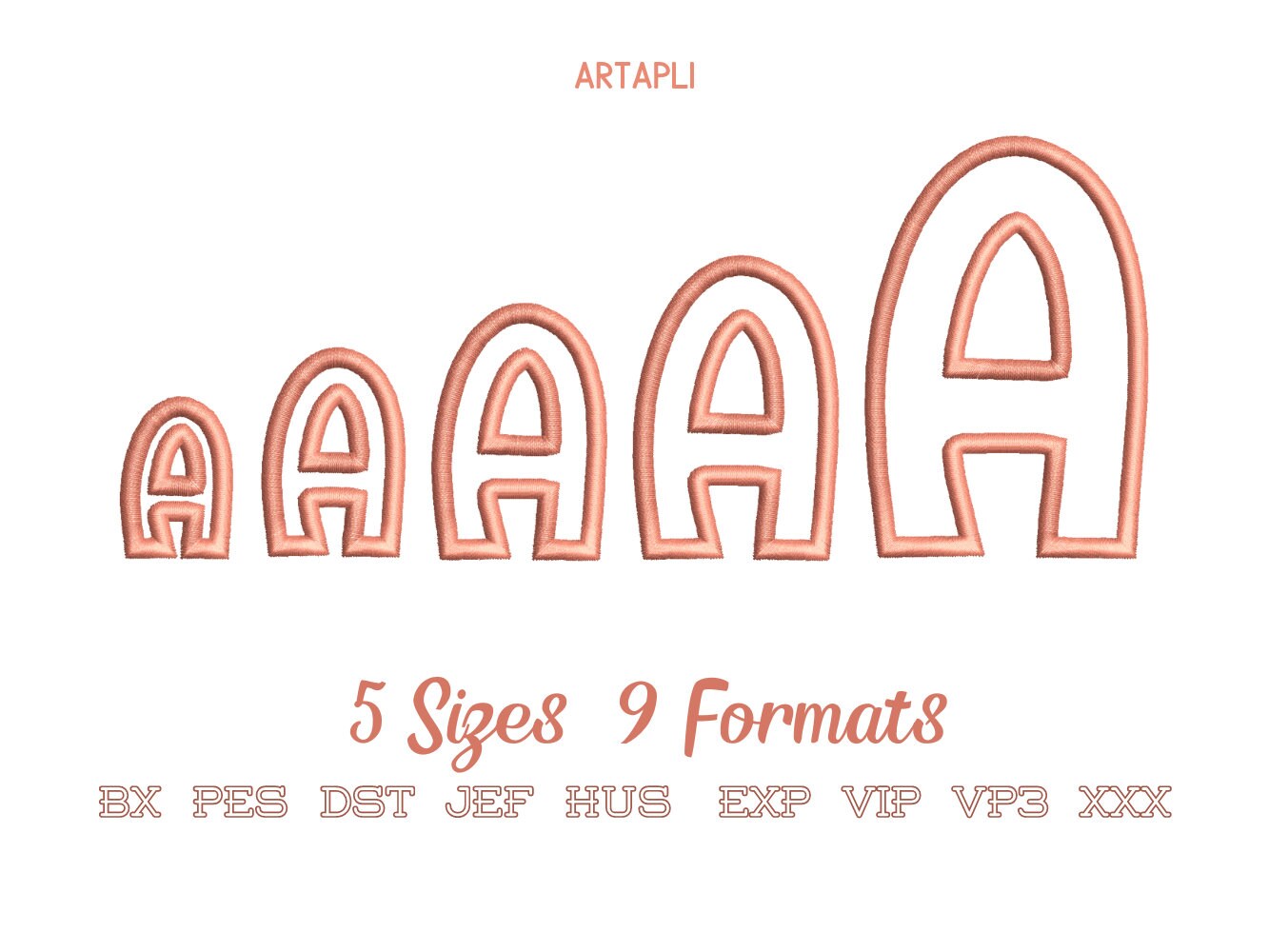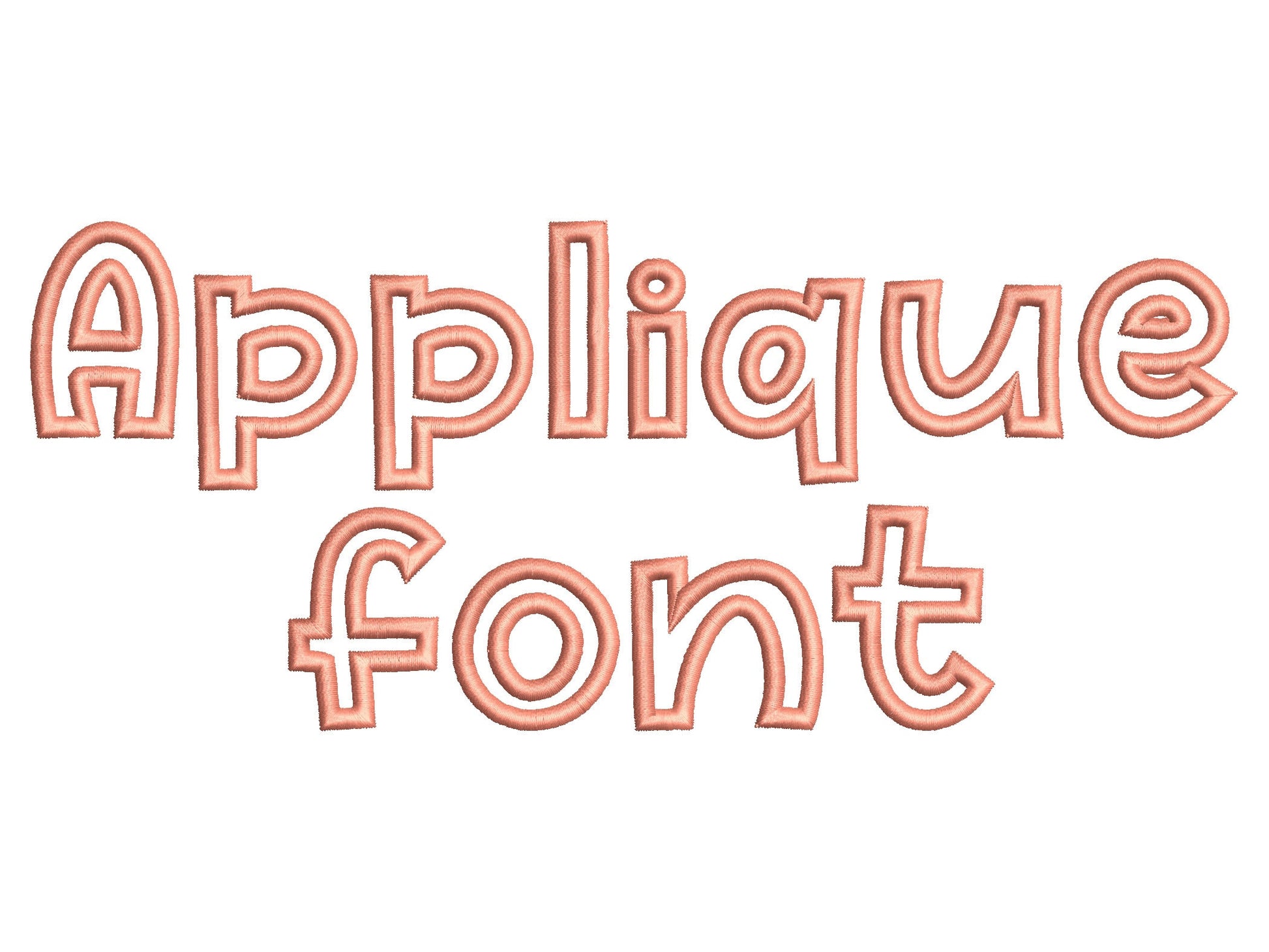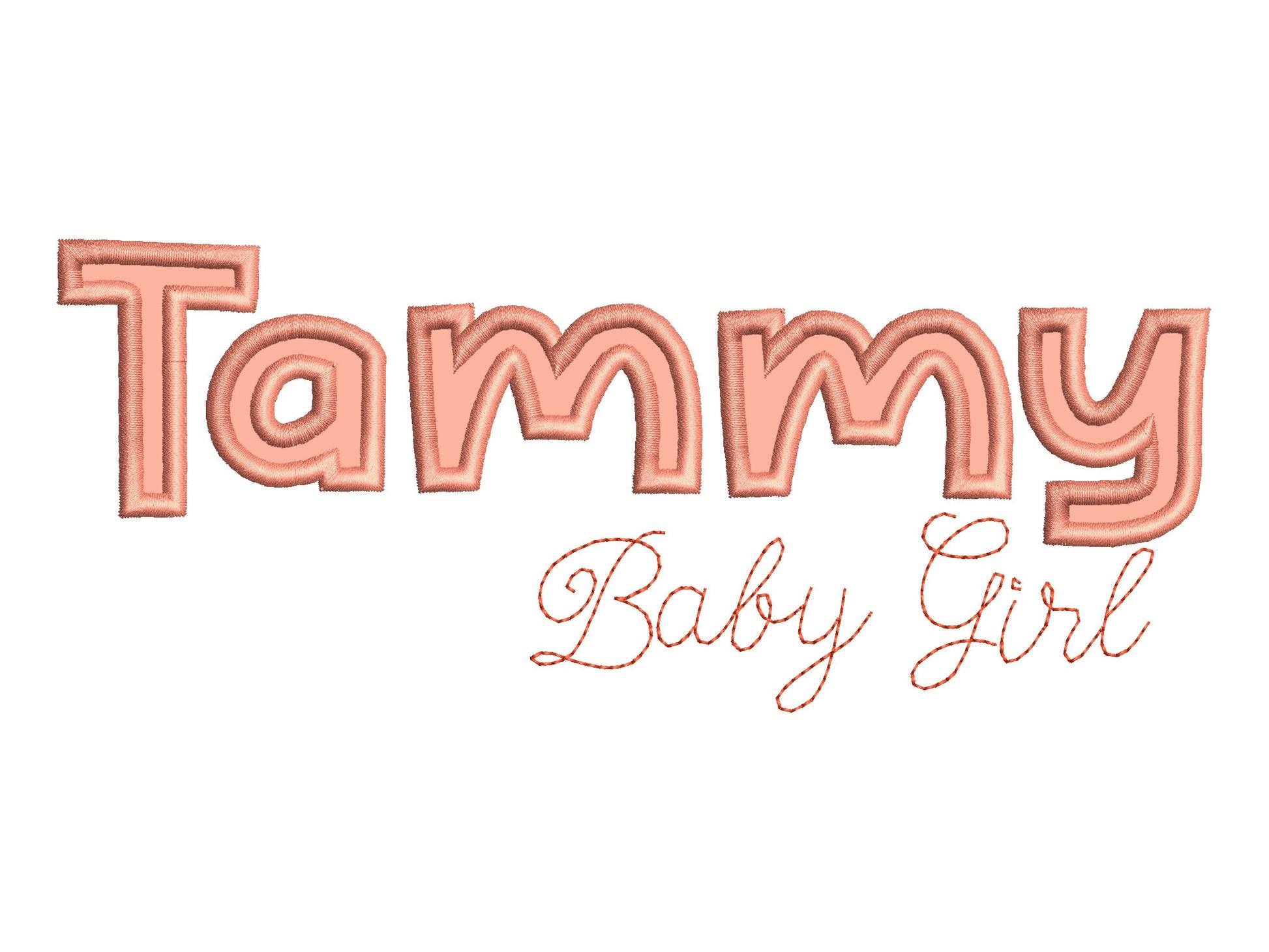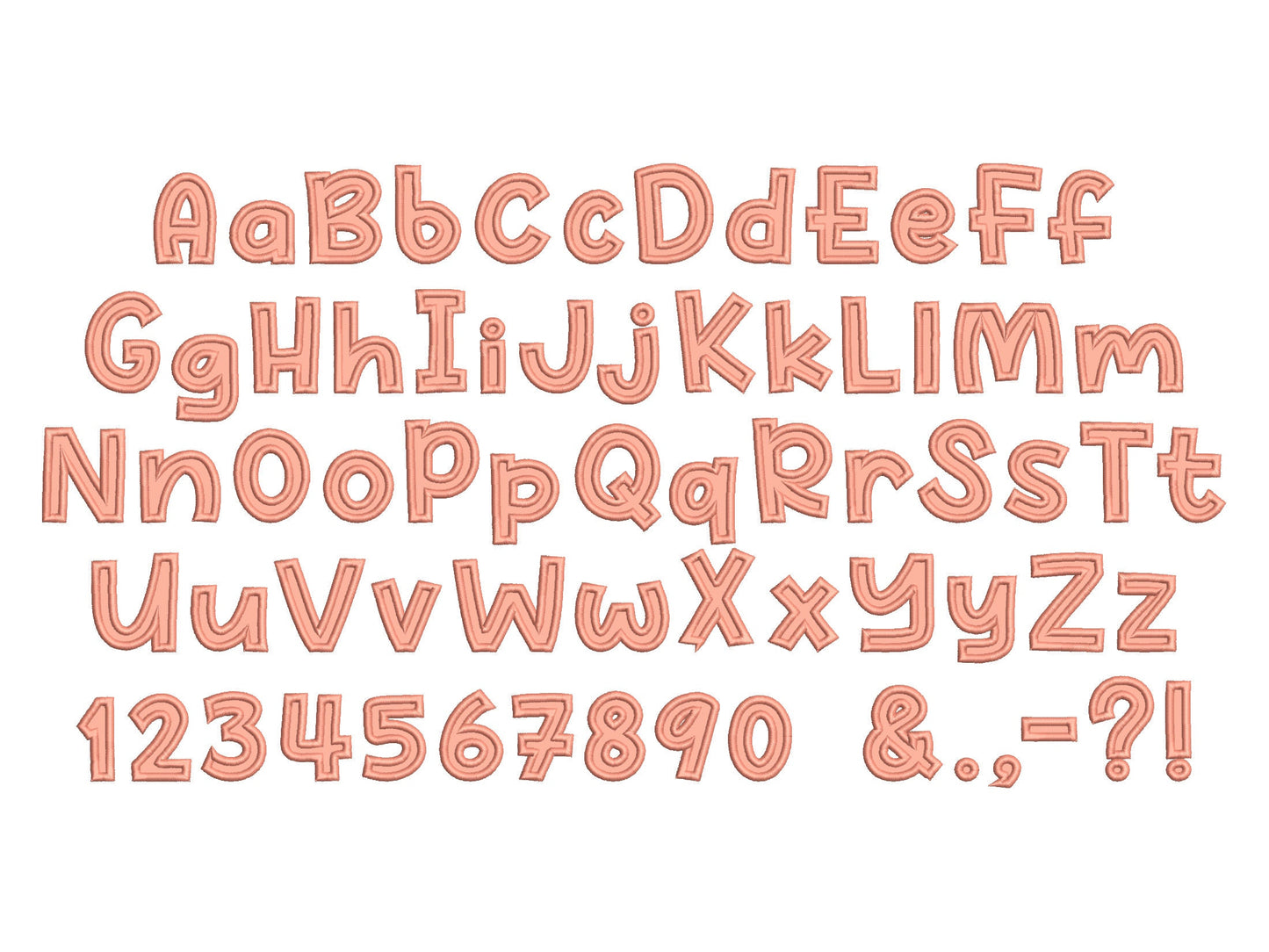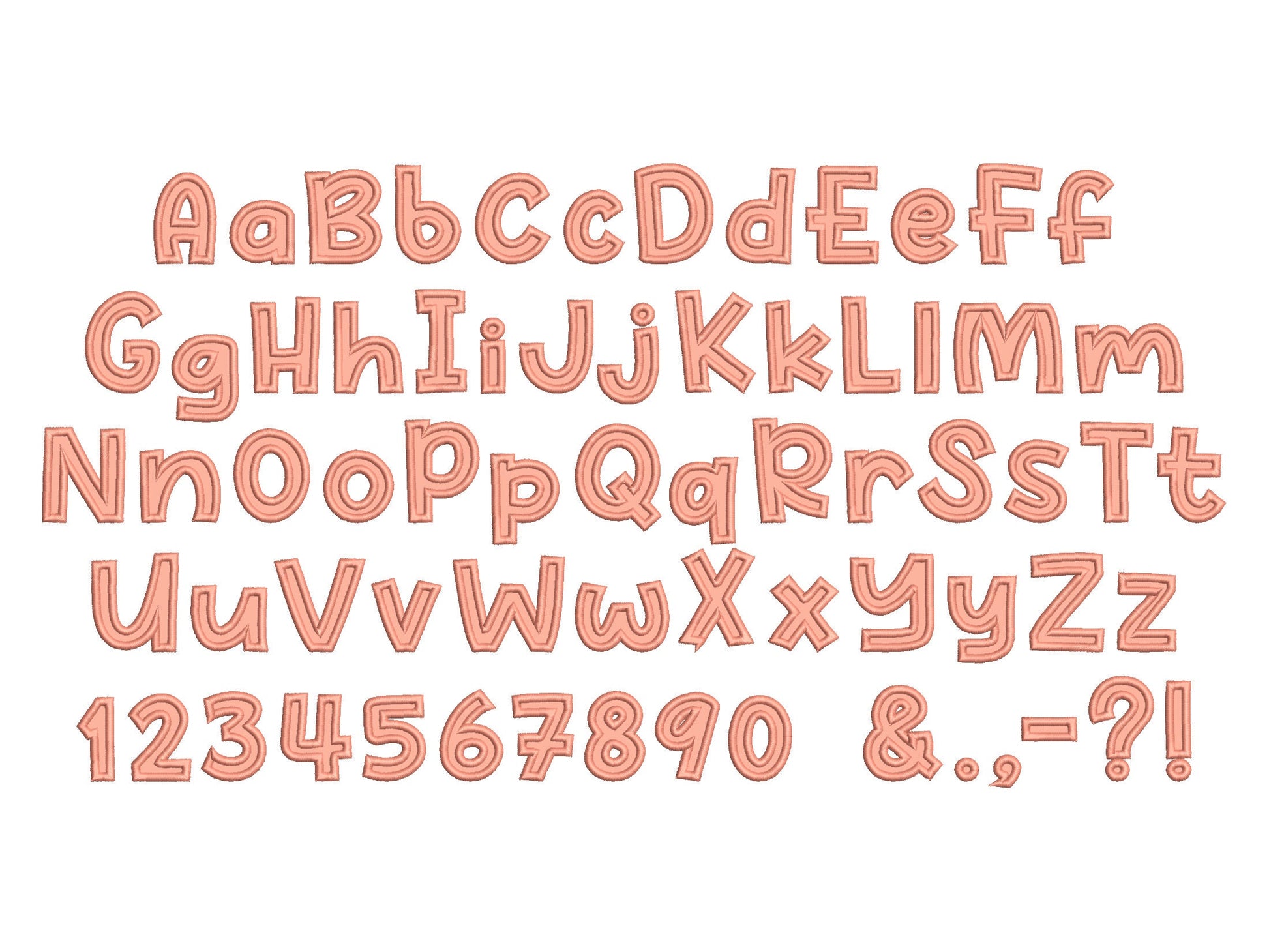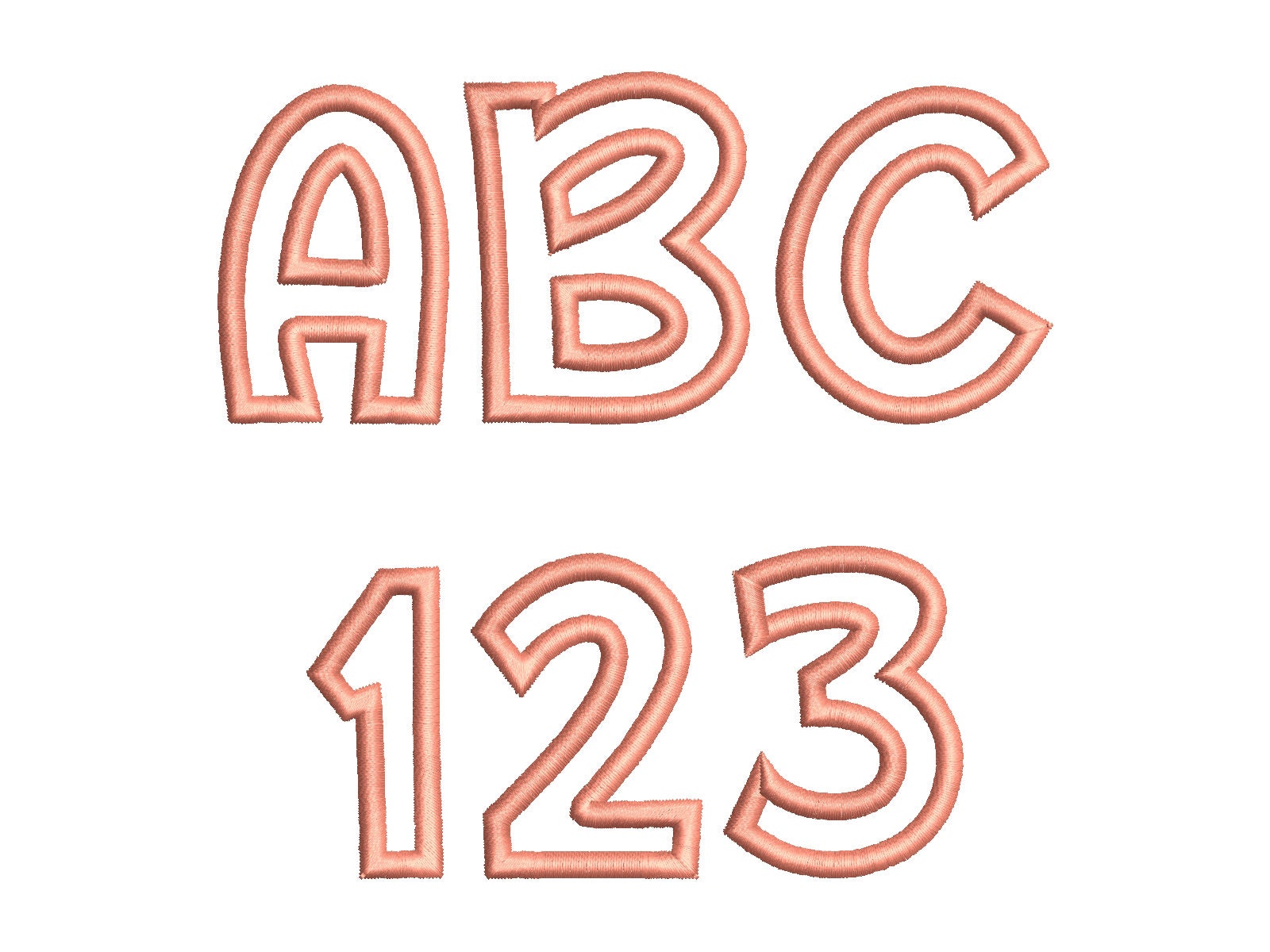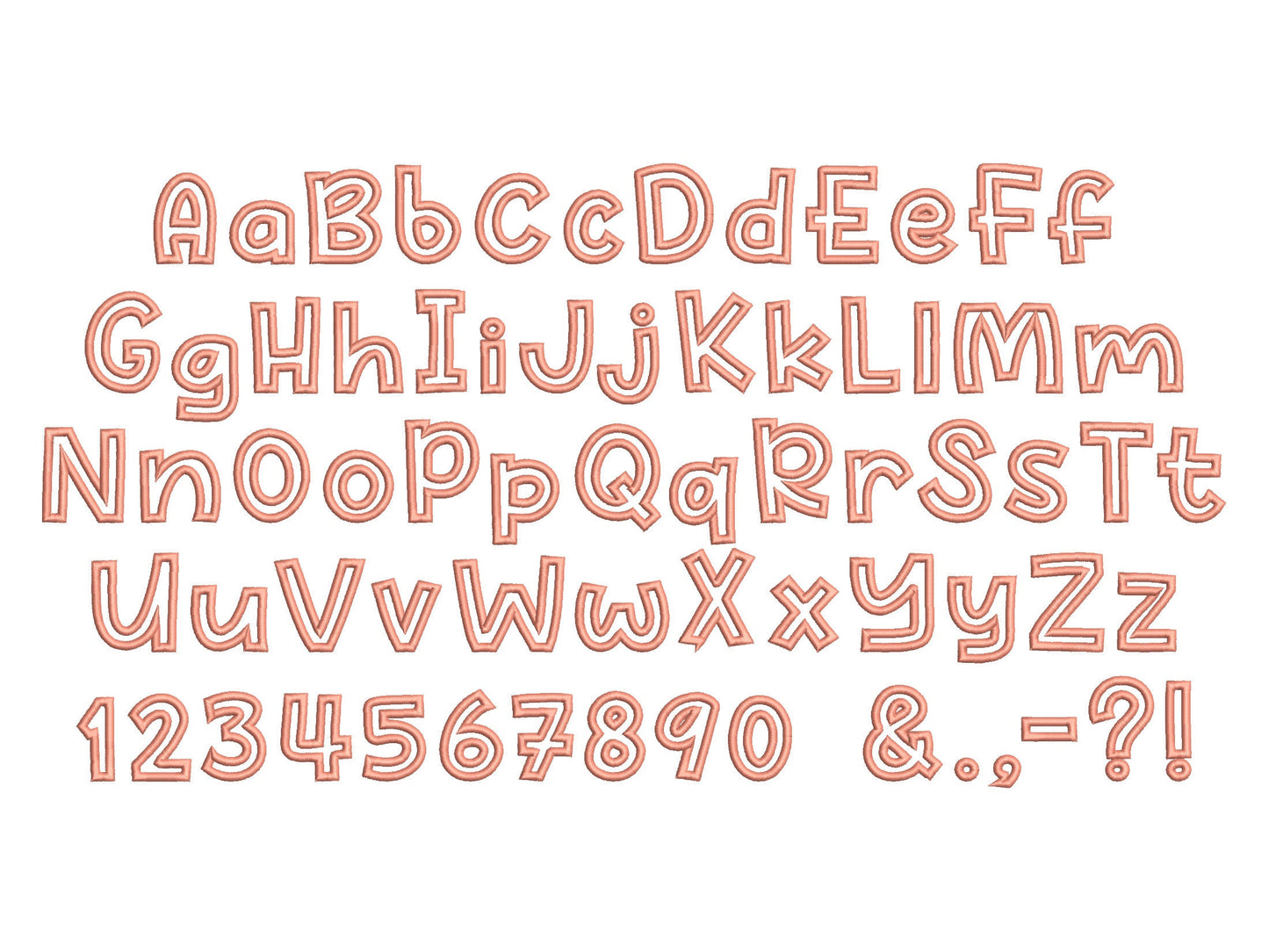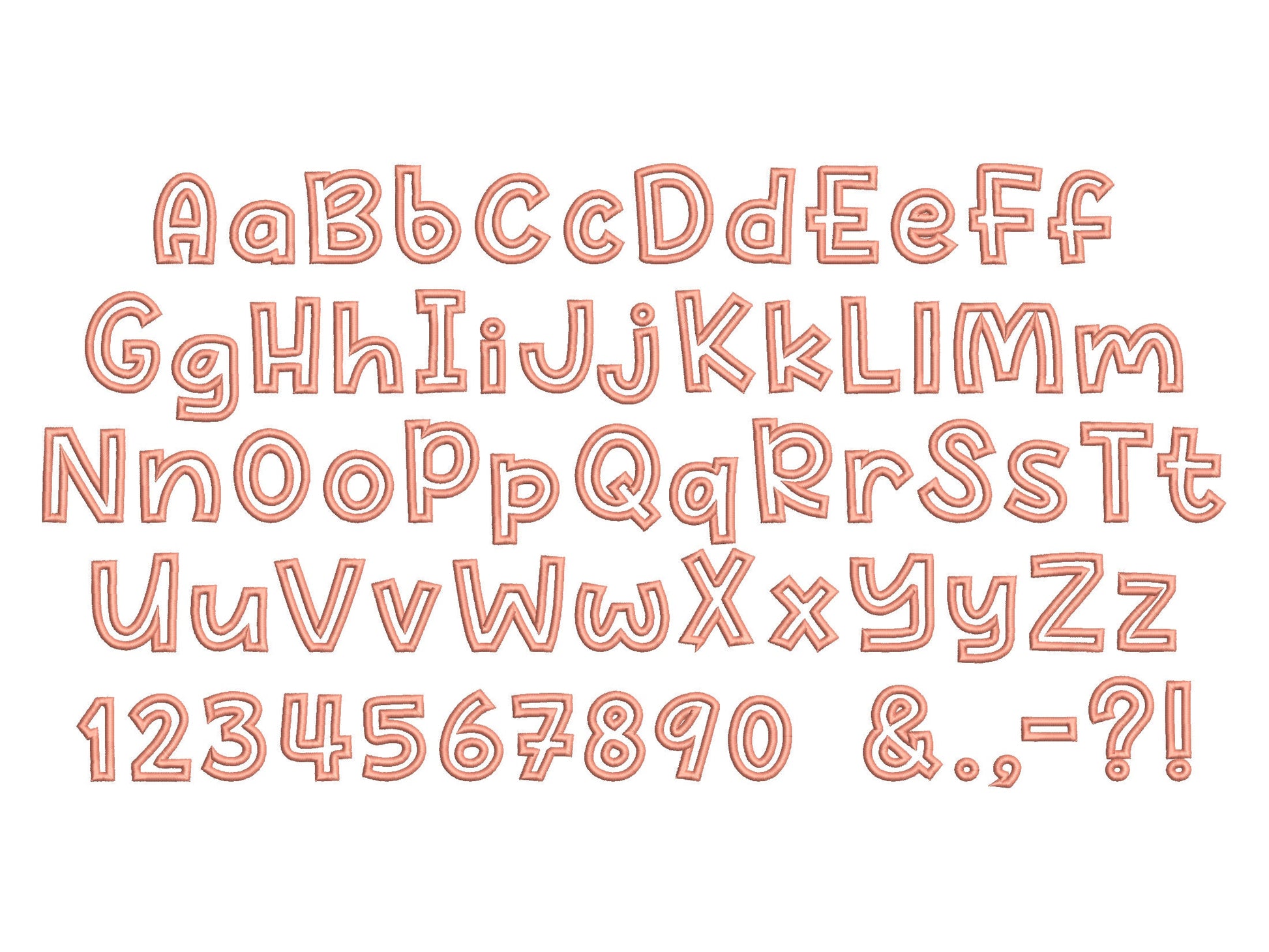
Or click to open the linkA bold applique font for names and monograms. Great for kids' shirts, pillows, bags and blankets.
Uppercase and lowercase letters, numbers 0 to 9 and punctuation. Five sizes: 1.3, 1.7, 2, 2.5 and 3.5 inches.